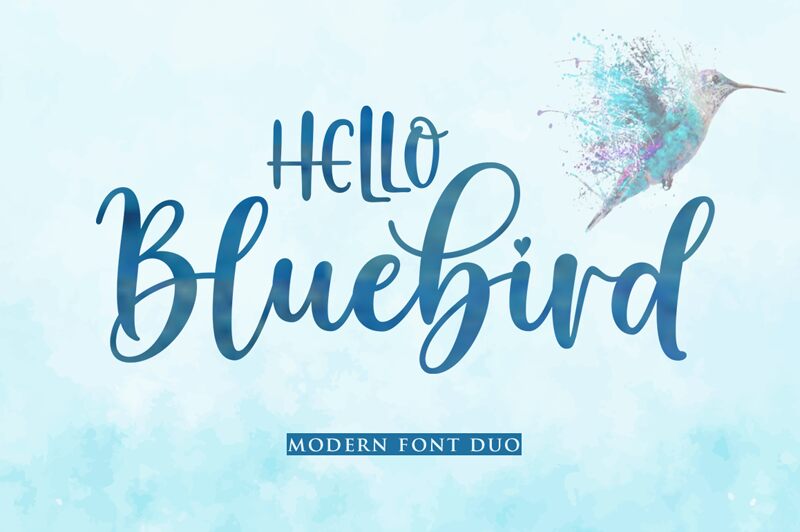
HelloBluebirdScript
Hello Bluebird Script by Rastype is a handwritten font that exudes charm and personality. With its semi-light weight and semi-condensed width, it strikes a balance between delicate grace and space-saving efficiency. The artistic loops and fluid strokes of Hello Bluebird Script bring an authentic touch of human presence to any digital canvas, making it perfect for invitations, branding, or personal correspondence that requires a bespoke feel.
Its aesthetic appeal lies in its ability to convey warmth and approachability through typography—qualities that can elevate the design of creative projects across various mediums.